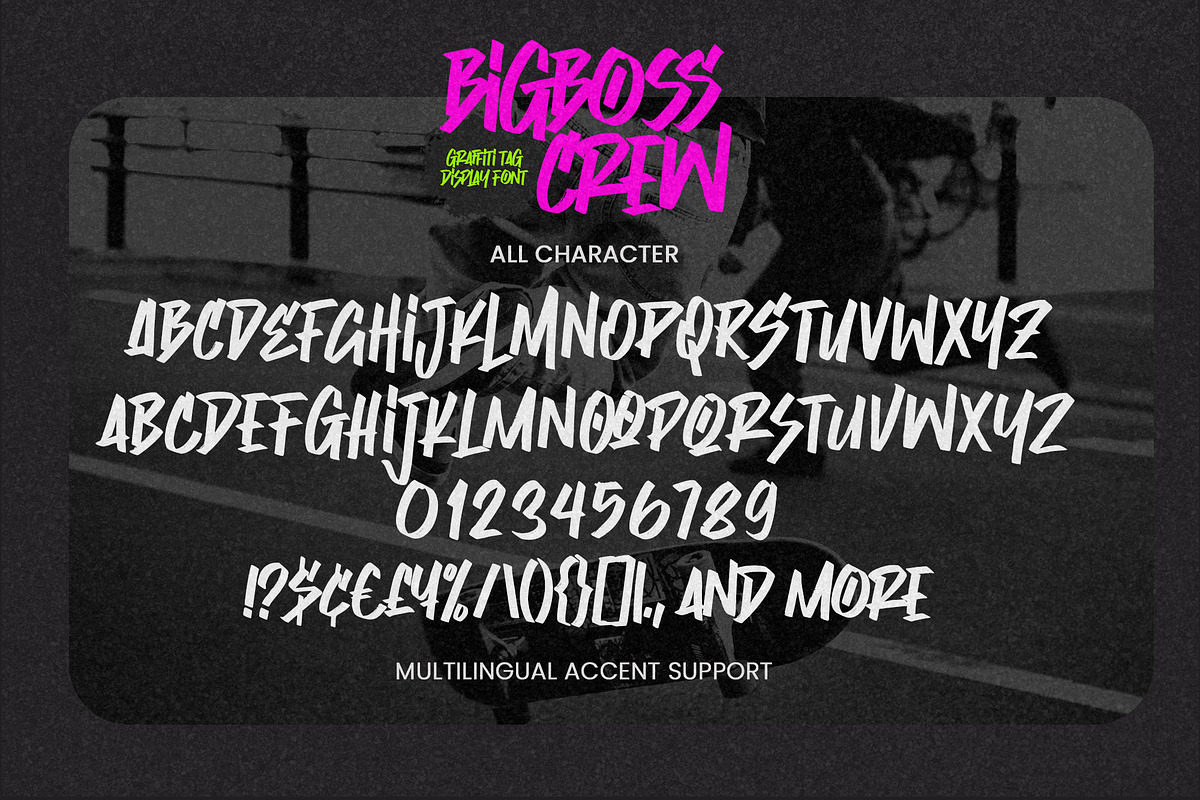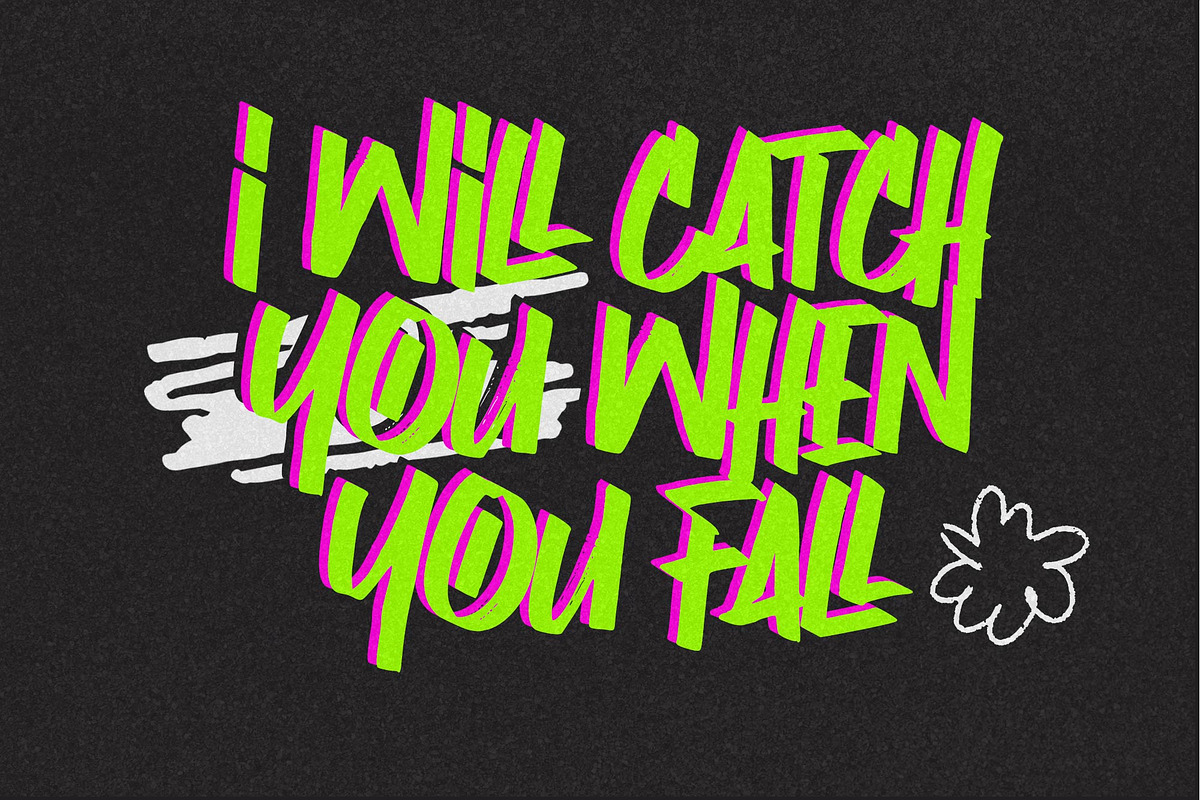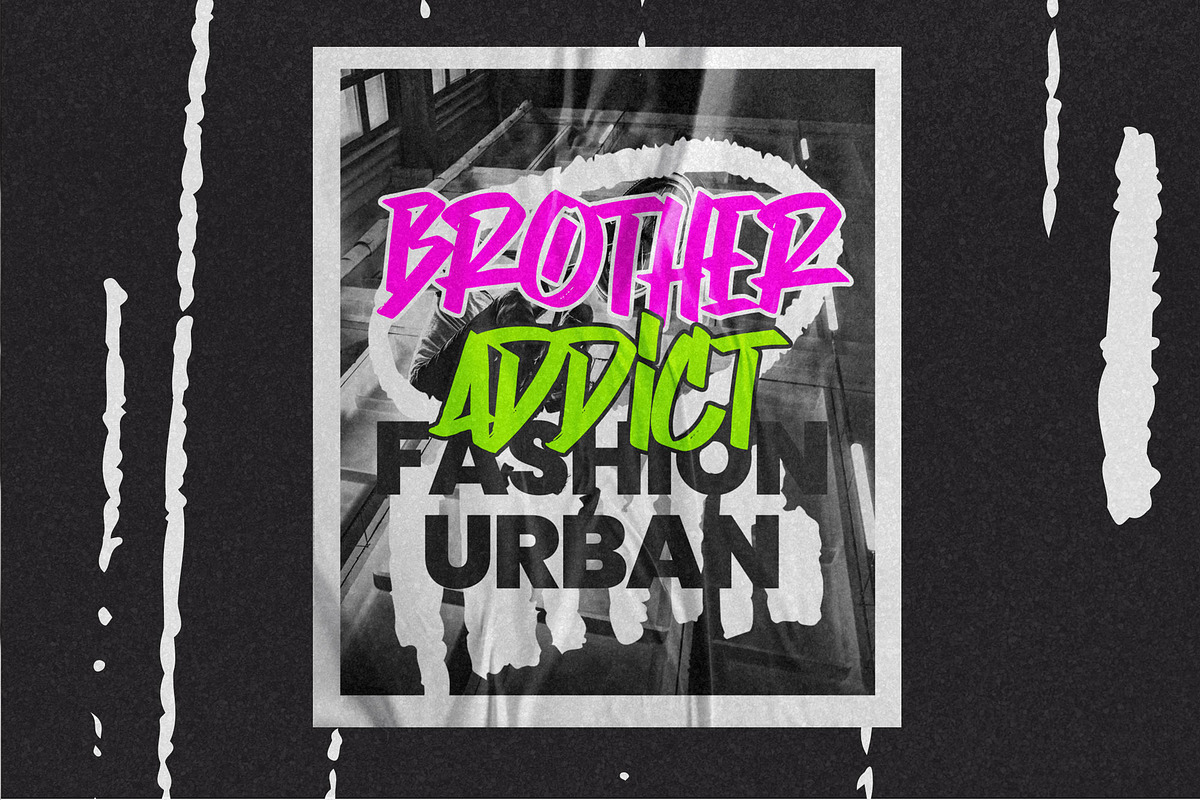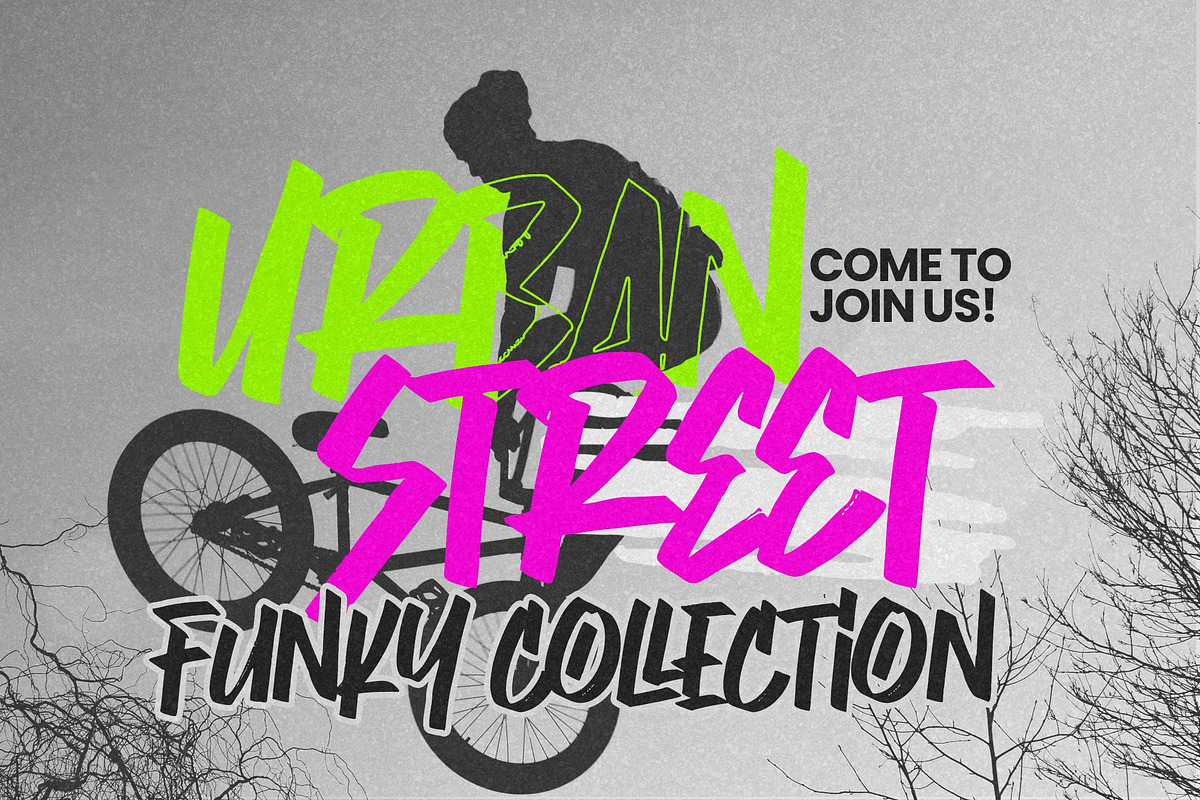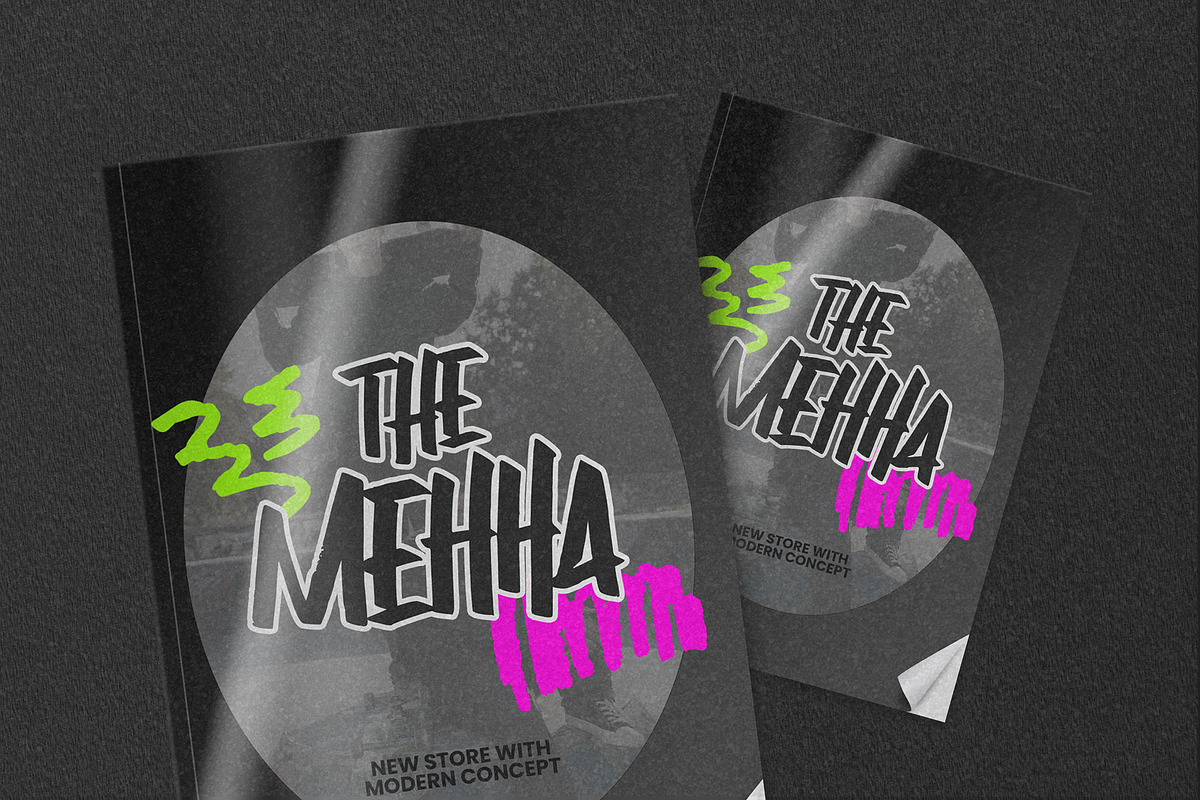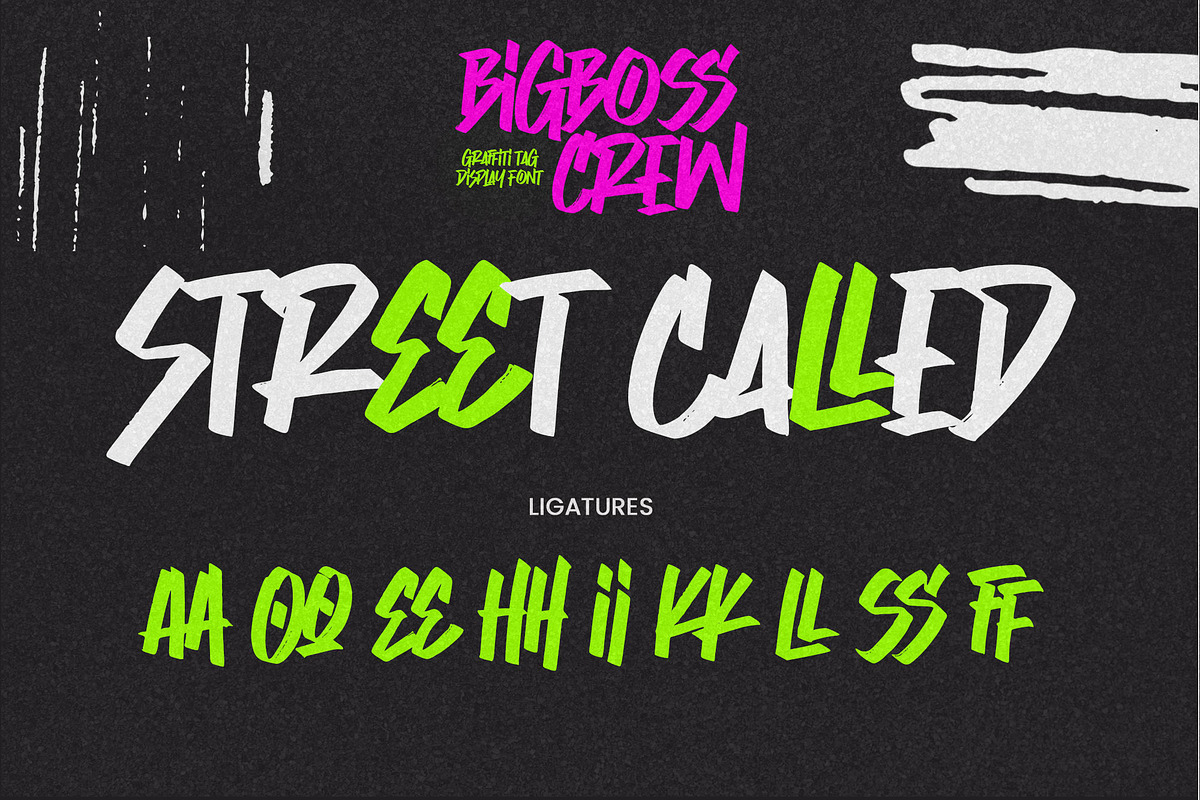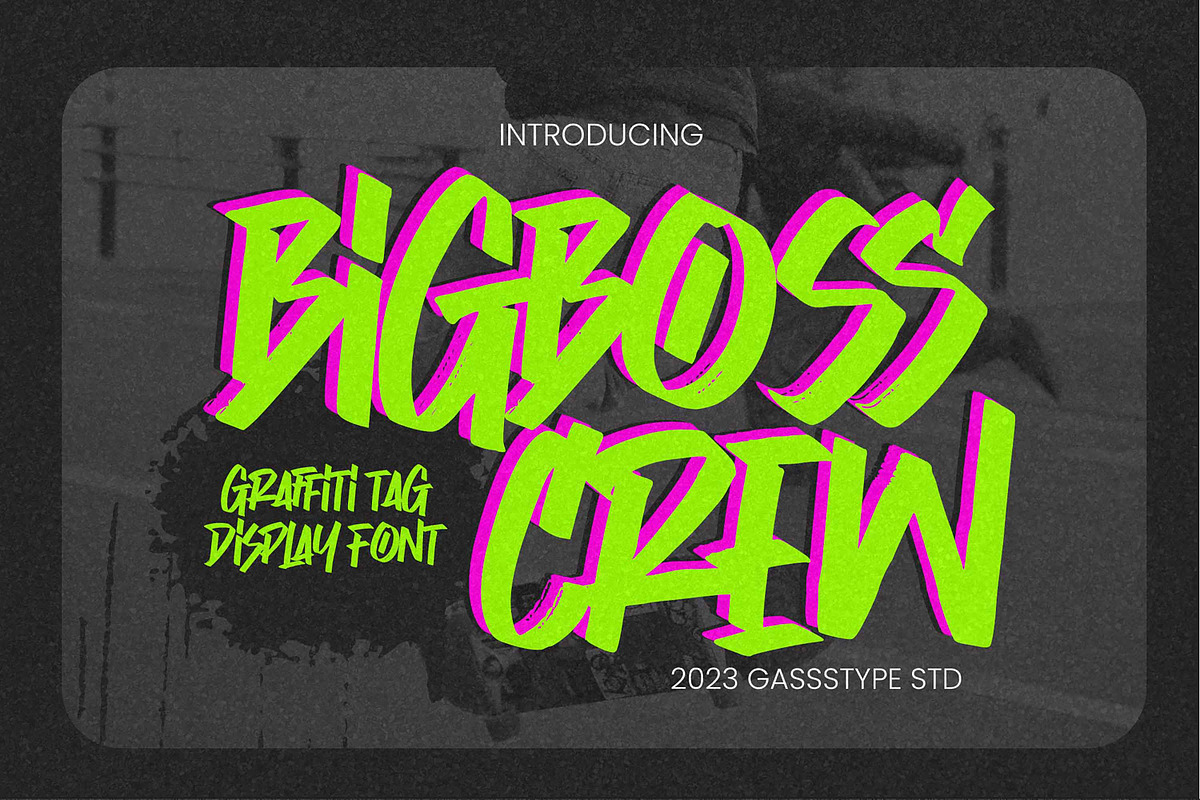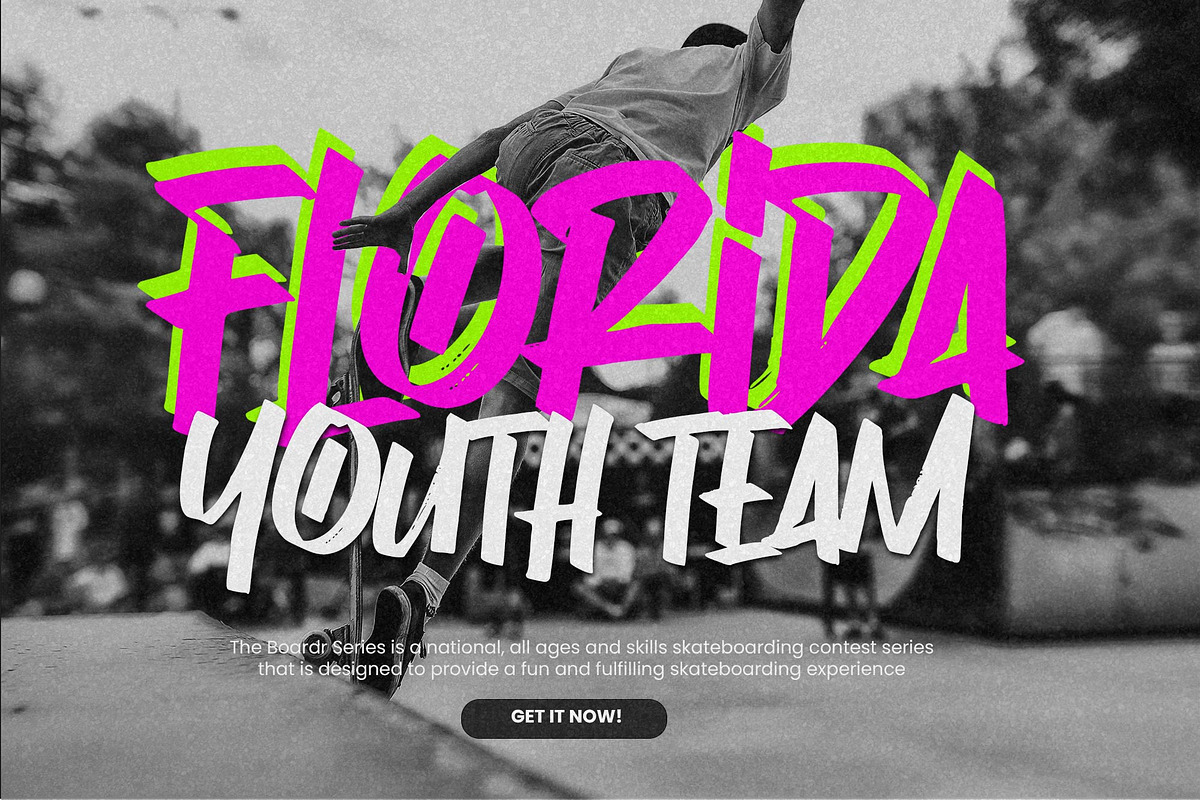
Bigboss Crew – Graffiti Tag Display
Bigboss Crew – Graffiti Tag Display font, modern style and dramatic movement that is written casually and quickly. The best for labels, poster, project designs look ,authentic and cool . It’s perfect for labels, quotes, posters, DIY projects, branding, packaging, greeting cards, websites, photography overlays, signs, scrapbooking, tags and so much more! That is why Bigboss Crew has a textured, and unique characteristic more natural look. You can activate Ligatures OpenType panel.